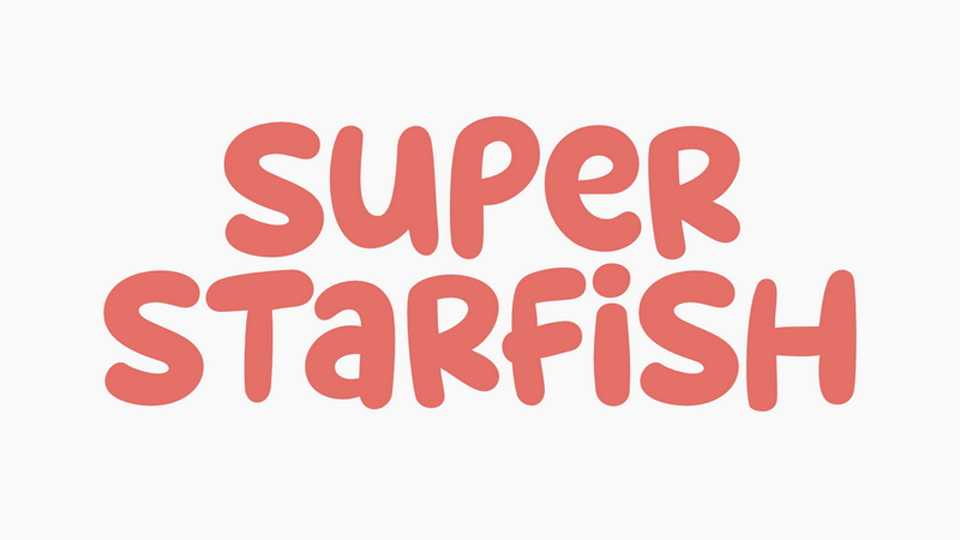
Download Super Starfish font, a rounded display typeface with a soft, friendly, and approachable style. Its smooth curves and balanced proportions create a calm yet playful appearance,